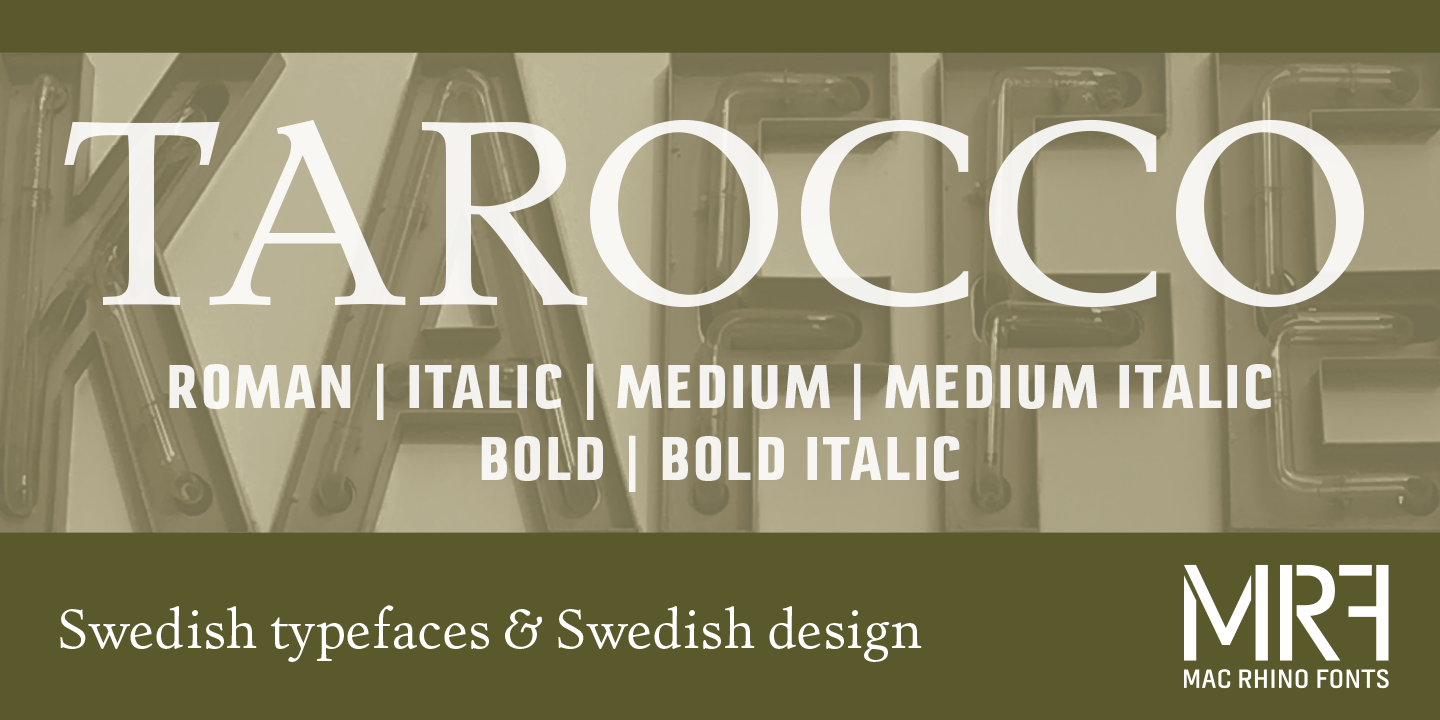
Tarocco Font is a captivating, elegant, and uniquely artistic typeface, perfect for designs that aim to evoke mystery, old-world charm, and a touch of the esoteric. Imagine it gracing the cover of a mystical novel, adding a sophisticated, arcane feel to esoteric card decks, or giving a distinctive, timeless identity to artisanal craft brands. It’s an exceptional choice for designing compelling book titles, crafting intriguing event invitations with a hint of magic, personalizing luxurious stationery, and enhancing any project where a sense of enchantment, refined artistry, and historical intrigue is desired. Its meticulously designed curves and unique flourishes make it suitable for anything from gothic-inspired fashion branding to sophisticated fantasy game interfaces, adding an immediate sense of mystery and depth.
What makes Tarocco Font truly exciting is its remarkable ability to blend classic elegance with an almost magical, handcrafted quality. It possesses an inherent narrative presence that makes text feel like it holds ancient secrets or a whispered legend. Designers are often drawn to its intricate details, the subtle interplay of thick and thin strokes, and the enchanting aura that gives each character a unique, memorable appeal. It’s a font that communicates with a sense of wonder, historical resonance, and an understated mystique, ensuring your message feels intriguing and resonates with a unique sensibility. Tarocco Font brings a sophisticated, otherworldly charm to your designs, allowing them to stand out with an aura of timeless magic and artistic individuality.
The Tarocco Font family typically offers a range of styles and features that enhance its versatility for various creative applications. While specific family members might vary, you can generally expect a captivating Regular weight that embodies its signature intriguing aesthetic. Given its specialized nature, Tarocco Font families might also include stylistic alternates for particular characters, ligatures that enhance its fluid, ornate flow, or even variations in decorative elements to provide a more authentic, bespoke feel. These features enable designers to create highly personalized text, ensuring that the font can adapt to intricate design requirements while maintaining its atmospheric, expressive character across various applications and sizes, whether for display titles or thematic body copy.